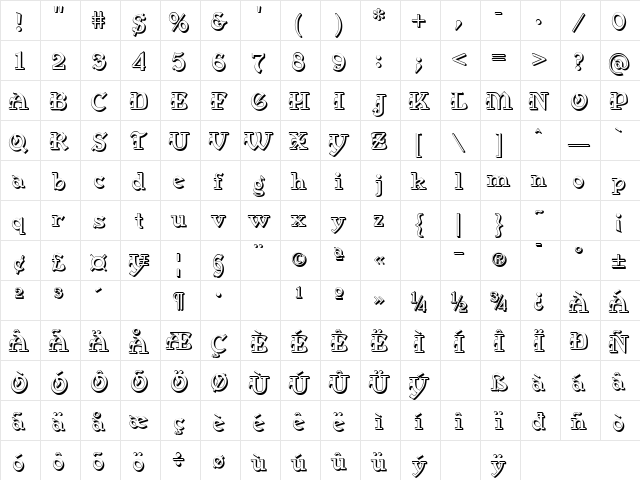
MedievalGunslingerShadow Regular
Design Context for MedievalGunslingerShadow Typeface
MedievalGunslingerShadow brings ornamental detail and strong personality to headlines and identities, where visual impact matters more than quiet functionality.
Font Pairing: Pair with a clean neutral sans-serif for body copy to let MedievalGunslingerShadow's character lead without overwhelming the composition.
Pro Tip: Use MedievalGunslingerShadow exclusively at display sizes — it was designed to be seen, not read at length. Let a neutral companion handle body copy.